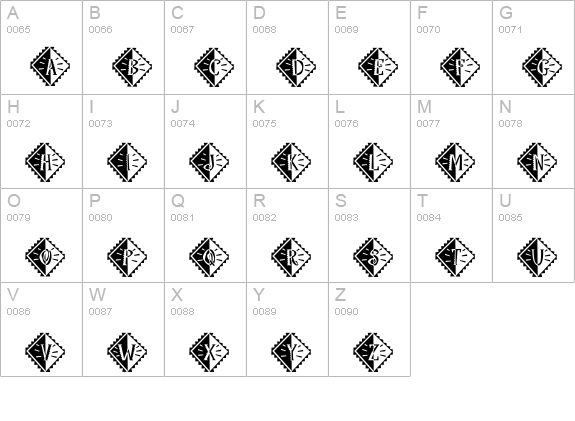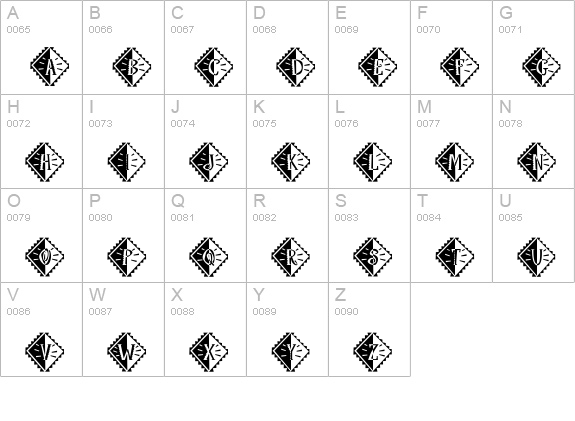
Mambo-MediumInitials Font Details
Introducing Mambo-MediumInitials, a stunning and versatile font that effortlessly combines sophistication with a touch of playfulness. This unique typeface showcases a perfect balance between elegance and creativity, making it suitable for a wide range of design projects. Mambo-MediumInitials boasts a captivating letterform, with each character exuding a sense of grace and charm. The medium weight of this font enhances its legibility, ensuring that your message is communicated flawlessly. The carefully crafted curves and intricate details of each letter lend an air of refinement to any design, making it a perfect choice for logos, branding, invitations, and more. What sets Mambo-MediumInitials apart is its ability to evoke a sense of individuality and artistic expression. With its distinctive initial capitals, this font adds a touch of flair and personality to your designs, making them truly stand out. Whether you're creating wedding invitations, headlines, or eye-catching posters, Mambo-MediumInitials will undoubtedly captivate your audience. And the best part is, Mambo-MediumInitials is available to download for free at FontsMarket.com. This means that you can enjoy the beauty and versatility of this font without any cost or hassle. Embrace the freedom to explore your creativity with Mambo-MediumInitials, and let your designs speak volumes. Download Mambo-MediumInitials today and unlock a world of possibilities. Whether you're a professional designer or a creative enthusiast, this font is sure to become an invaluable asset in your typography collection. Elevate your designs with the elegance and charm of Mambo-MediumInitials, and watch as your creations come to life.